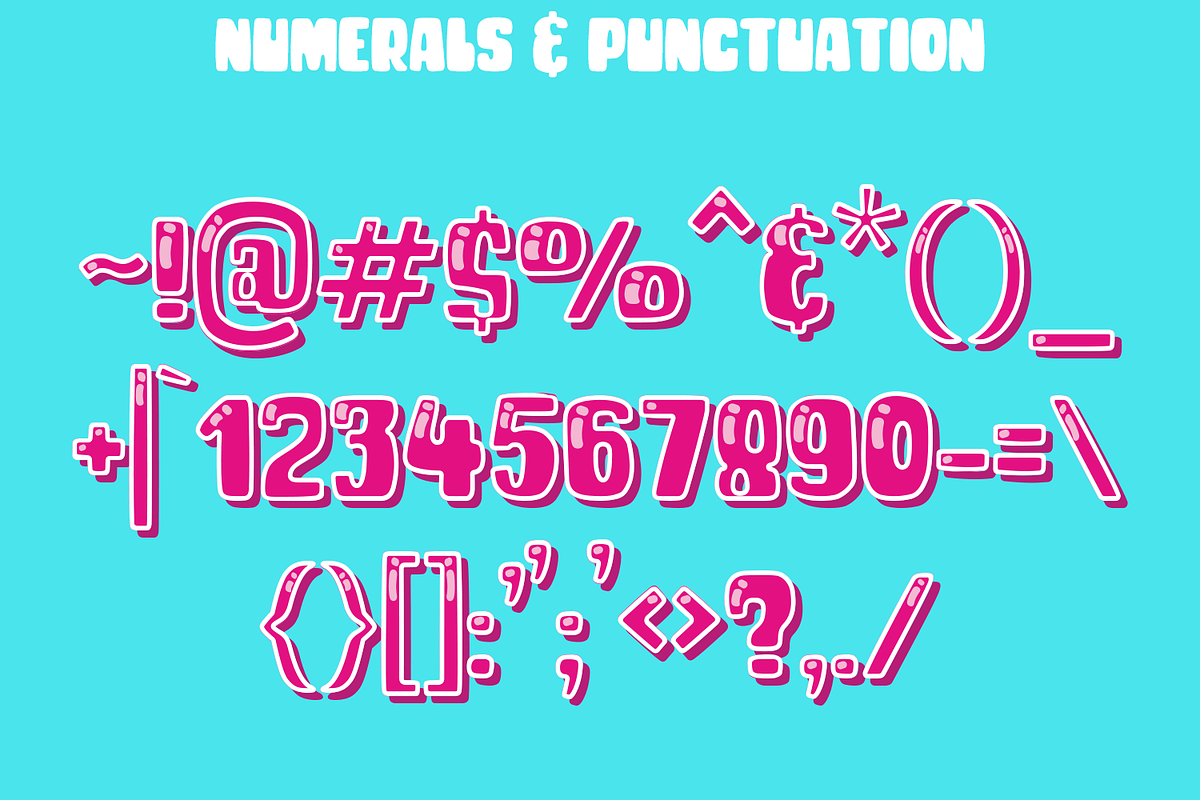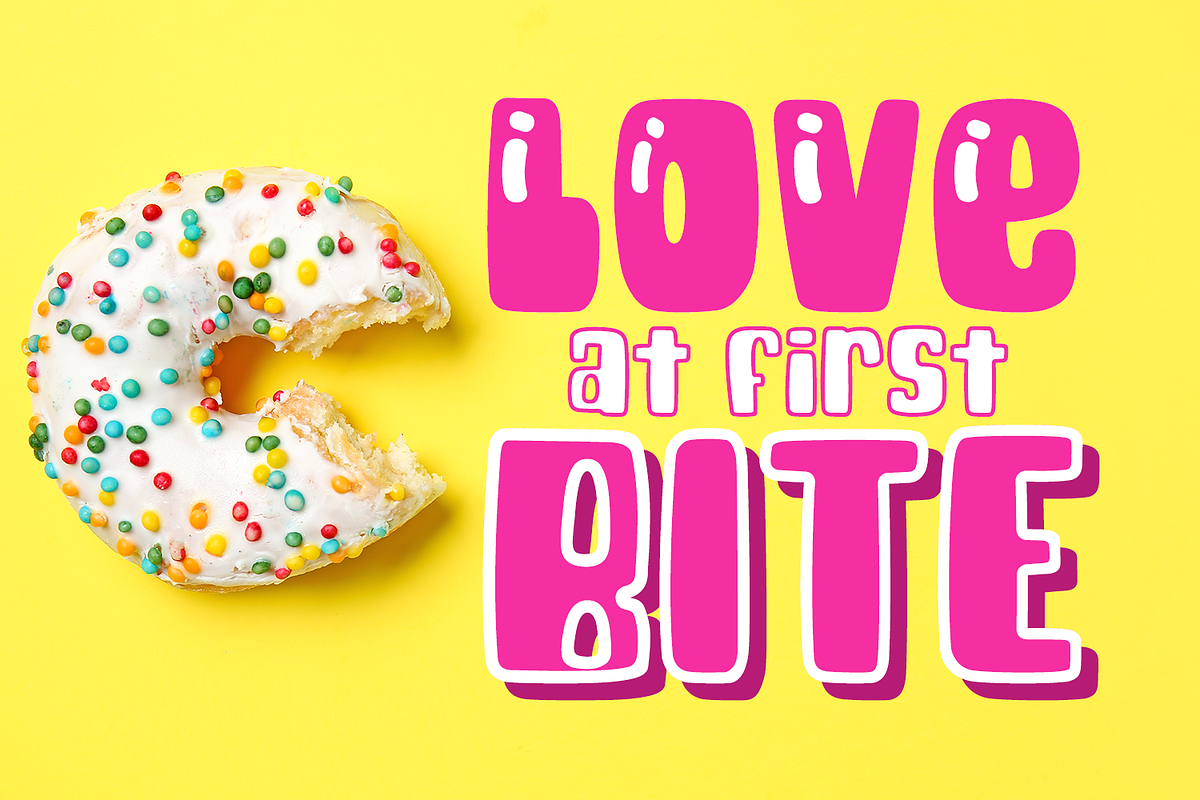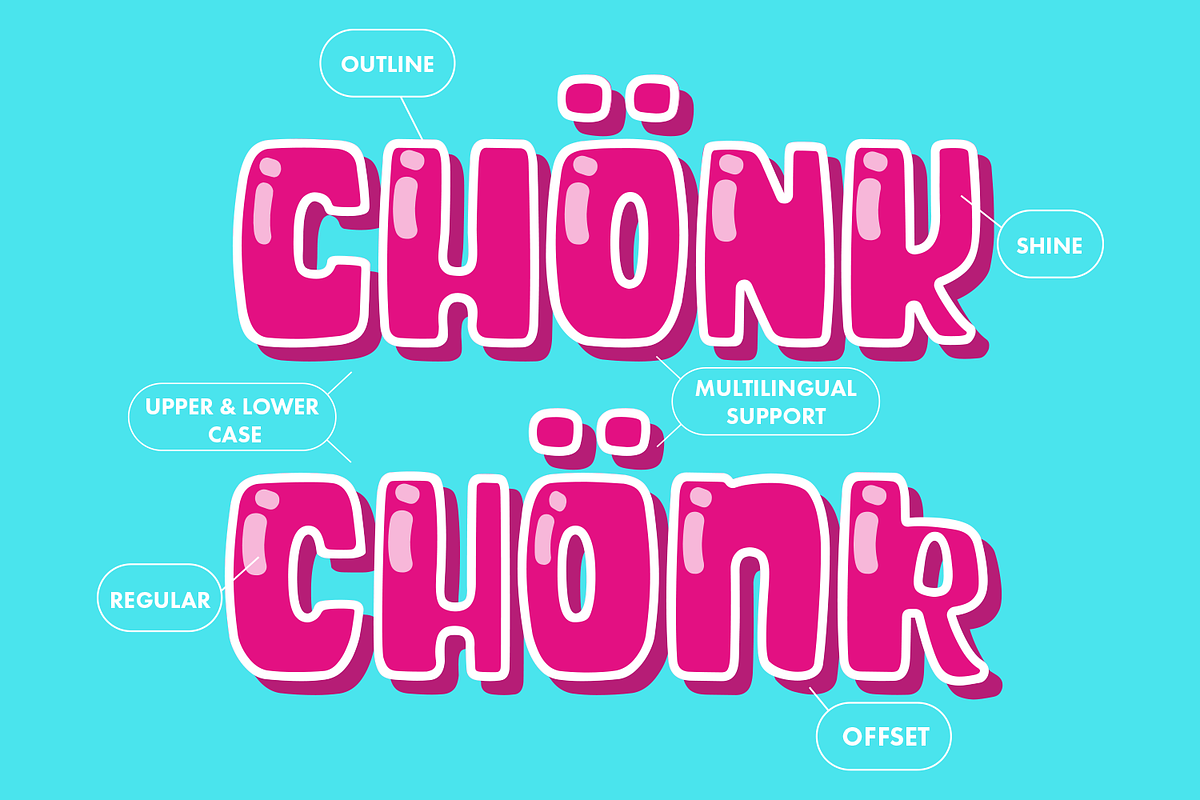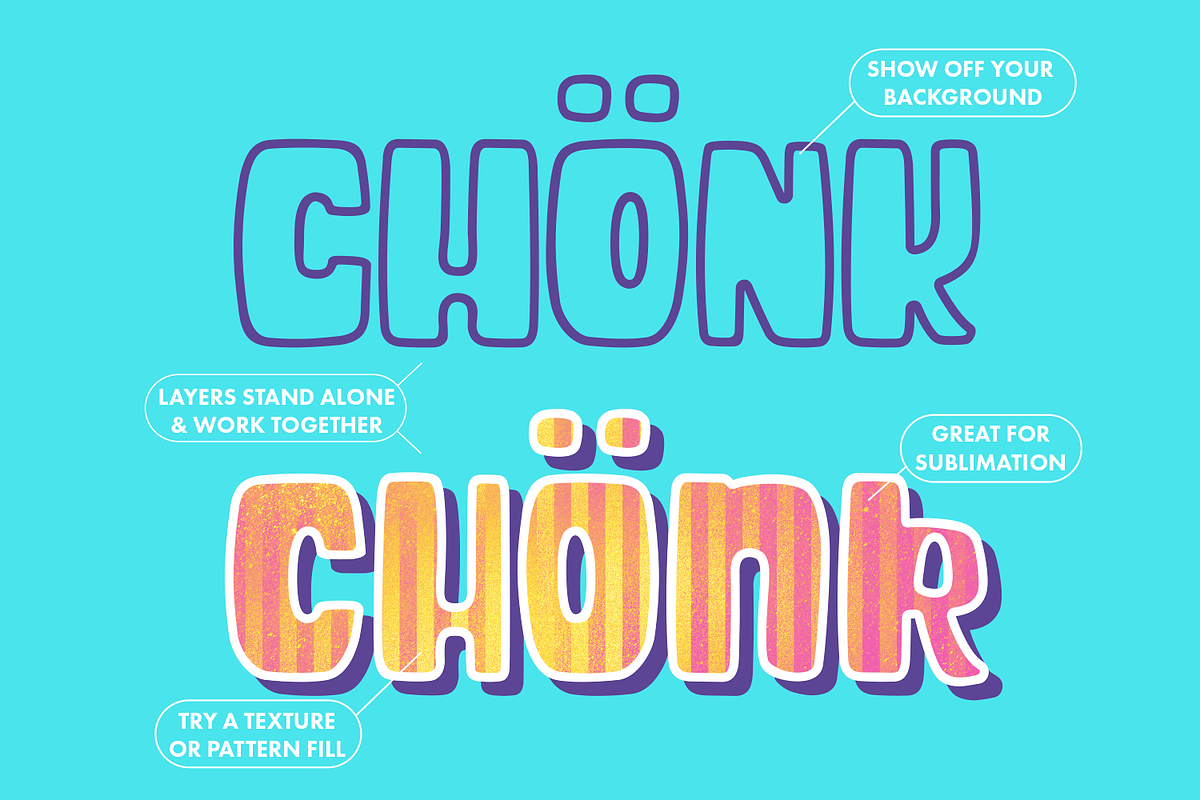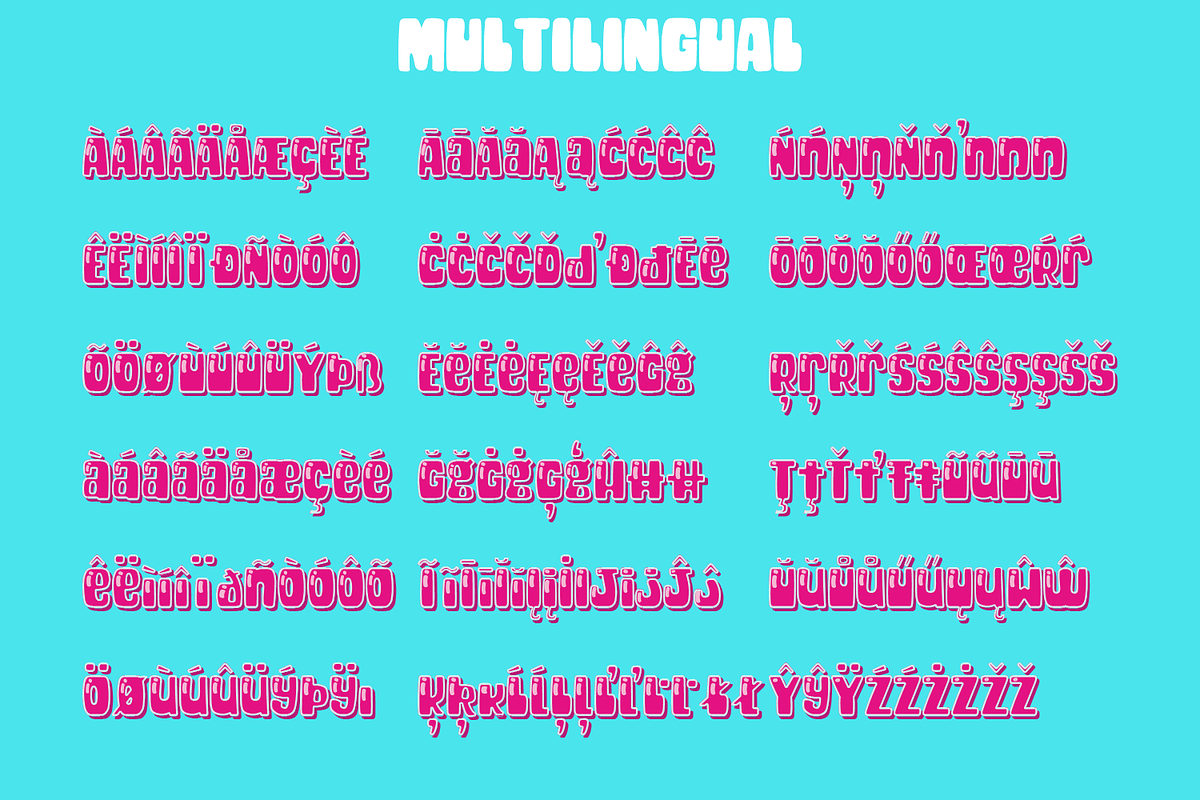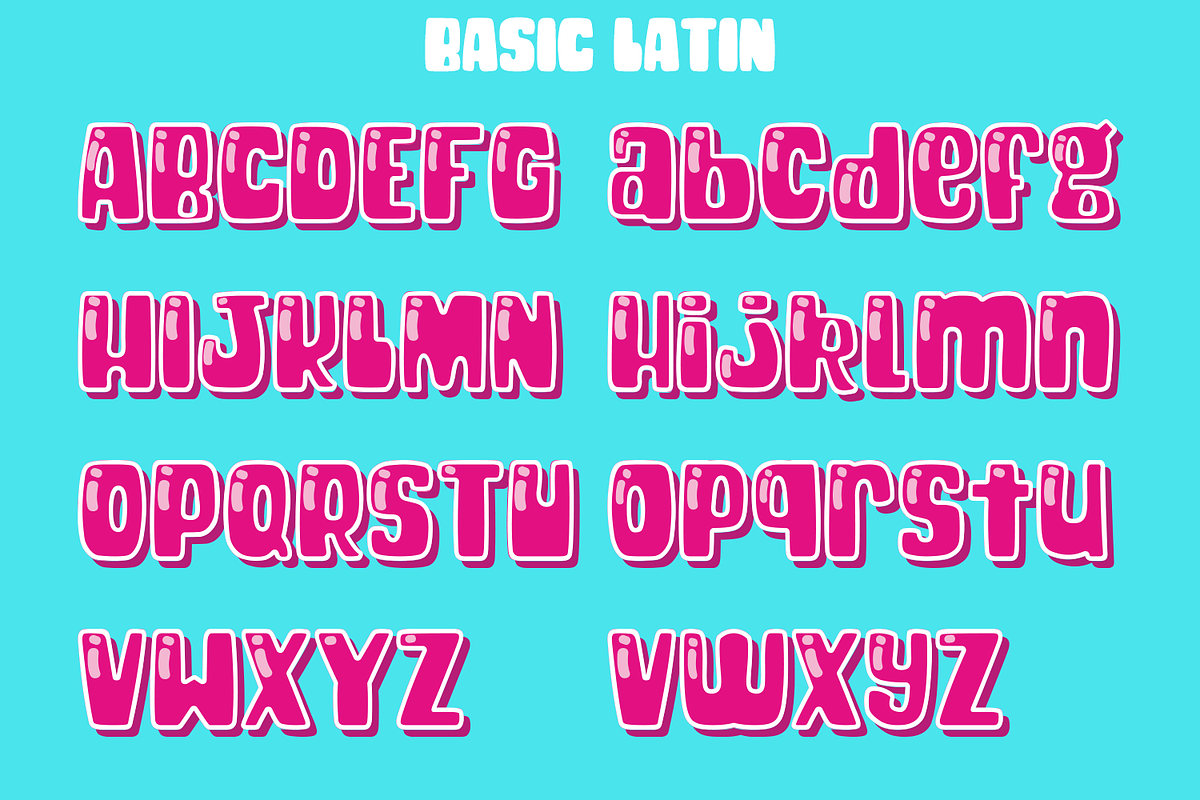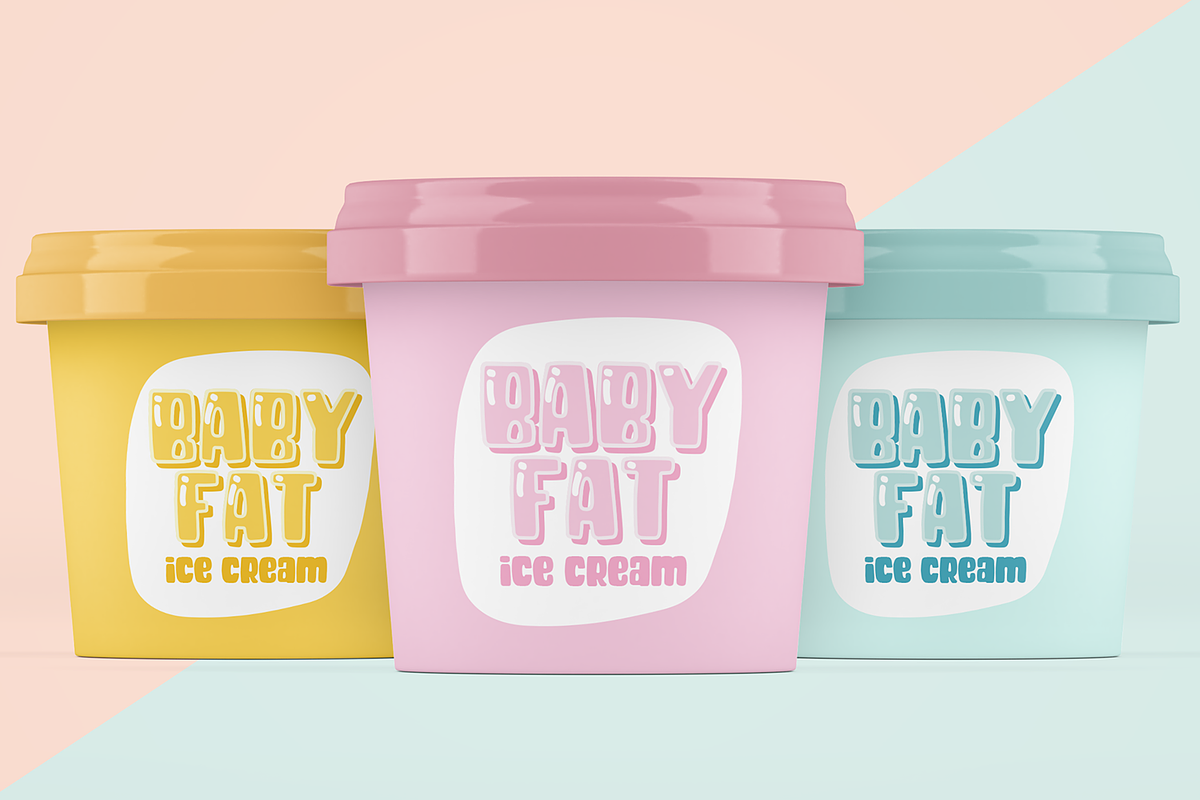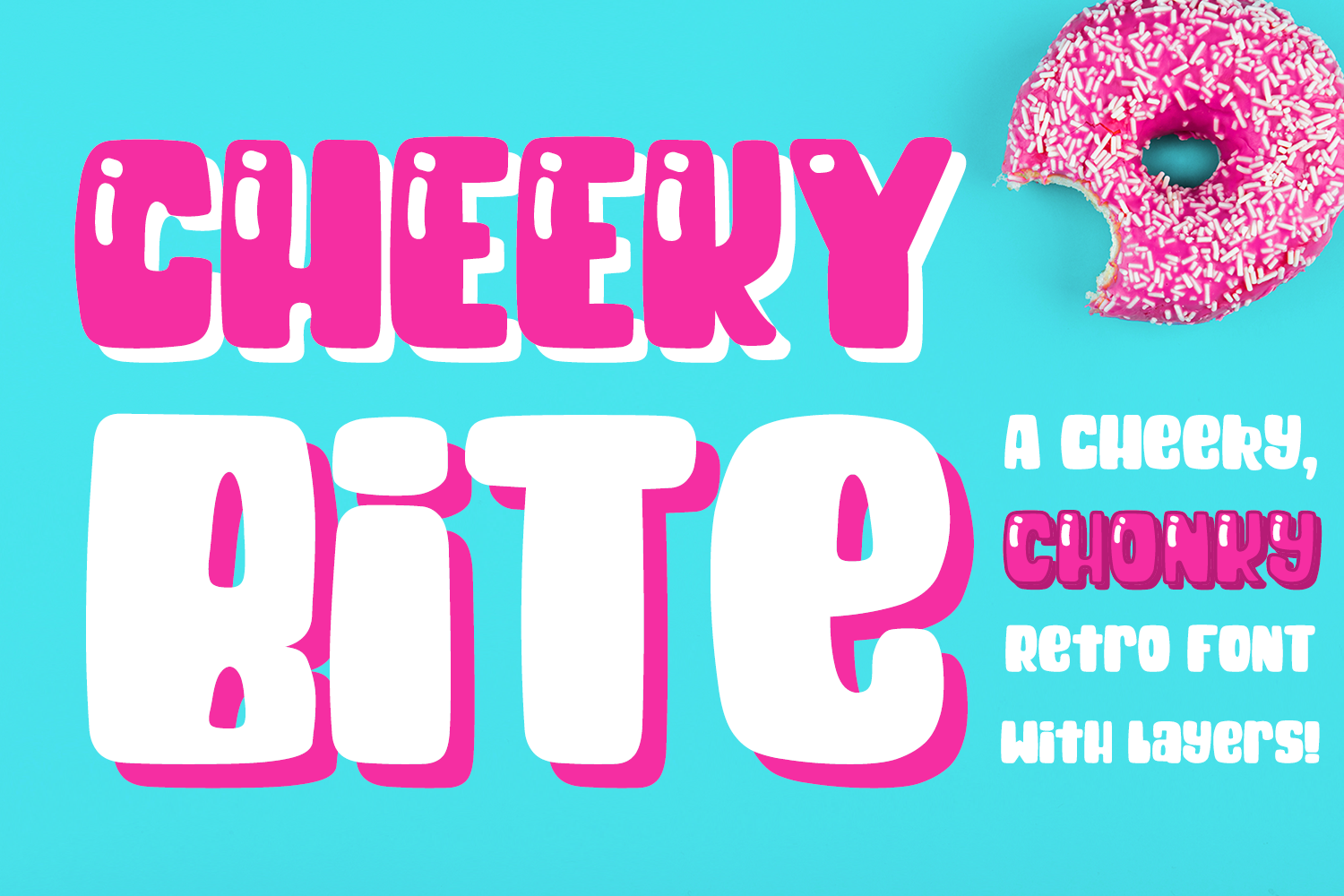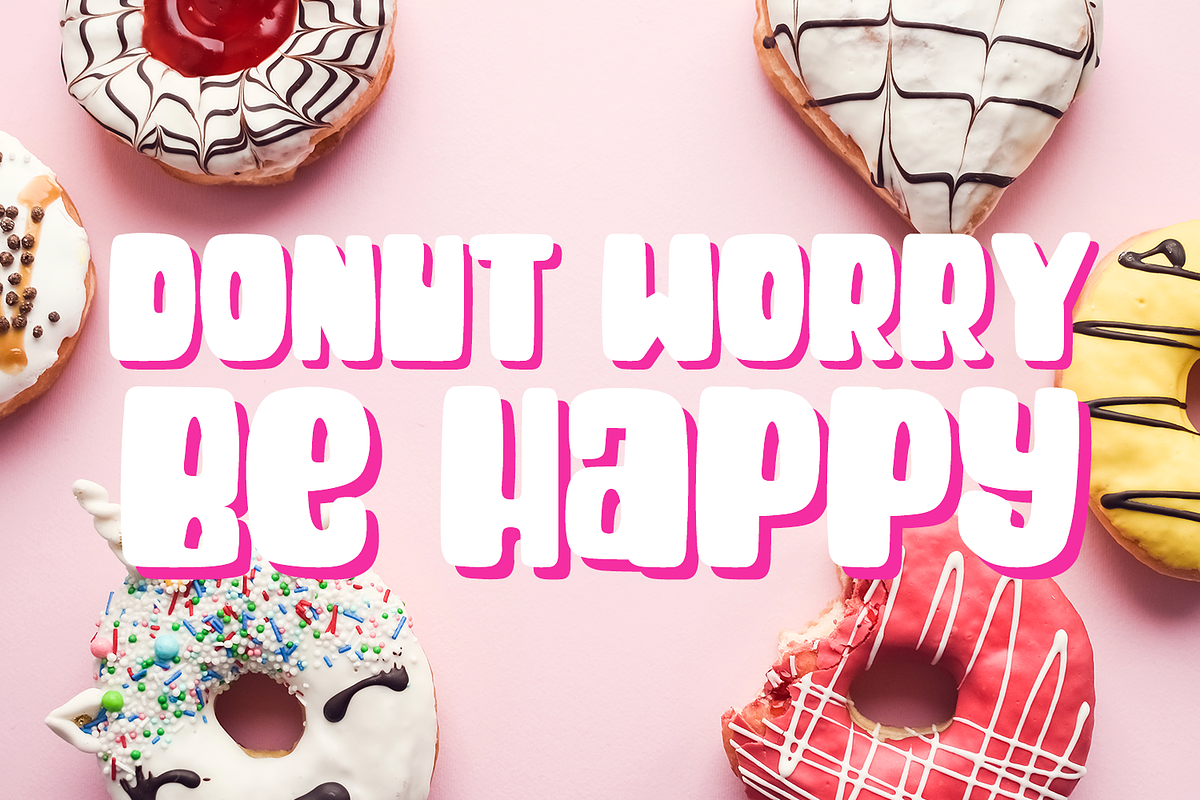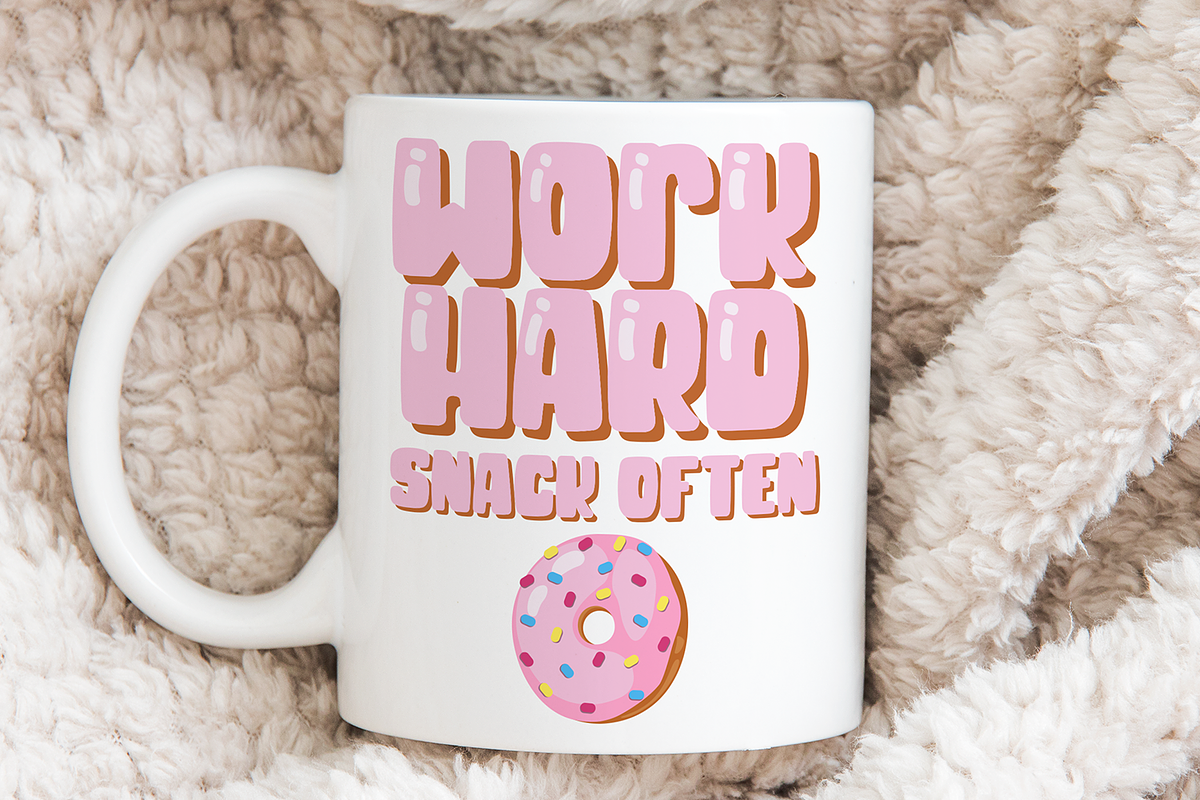
Cheeky Bite Chunky Layered Font
Cheeky Bite is a chunky retro layered font perfect for attention-grabbing headlines!
Use this family of layered fonts to make an impact. There are 4 layers in the system which you can use independently or combined.
Cheeky Bite Offset Cheeky Bite Outline Cheeky Bite Shine
Each font has a total of 355 glyphs including Basic Latin, numerals and punctuation, and multilingual support (pictured.)